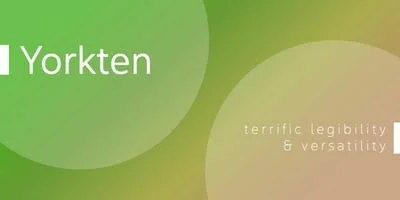
Yorkten Font
The Yorkten Font excels in various design applications including metropolitan city branding, urban development communications, modern architectural firms, contemporary municipal signage, progressive city planning materials, sleek transportation systems, cosmopolitan lifestyle brands, dynamic corporate identities, sophisticated commercial real estate, and forward-thinking civic projects that demand urban sophistication and metropolitan elegance.
What makes the Yorkten Font exciting is its embodiment of modern metropolitan energy through letterforms that capture the dynamic rhythm and architectural sophistication of contemporary urban environments. This typeface demonstrates exceptional balance between structural precision and organic flow, featuring carefully engineered characters that suggest the vertical dynamism of skyscrapers and the horizontal movement of bustling city streets. The font's urban personality makes it perfect for organizations seeking to communicate metropolitan expertise, cosmopolitan appeal, and the progressive energy of modern city life through typography that reflects the complexity and vitality of urban civilization.
The Yorkten Font family typically includes comprehensive weight variations optimized for urban signage applications, featuring condensed variants for space-efficient design and extended versions for impactful headlines. These family options often include specialized characters for municipal use, architectural symbols, and metropolitan elements that enhance the font's utility for civic communications and urban branding applications requiring both functionality and sophisticated visual appeal.
Urban planning professionals and metropolitan organizations consistently select Yorkten Font for projects requiring typography that communicates civic leadership and urban sophistication. This typeface delivers exceptional performance in municipal communications, architectural presentations, and metropolitan branding where establishing credibility and demonstrating progressive thinking is essential for community engagement. The font's metropolitan character makes it particularly effective for transportation systems and urban development initiatives. Download Yorkten Font today to access this dynamic typeface that transforms urban communications with its metropolitan precision and cosmopolitan sophistication, creating compelling civic experiences that demonstrate the vitality and intelligence of modern urban planning while maintaining exceptional functionality for diverse metropolitan applications.